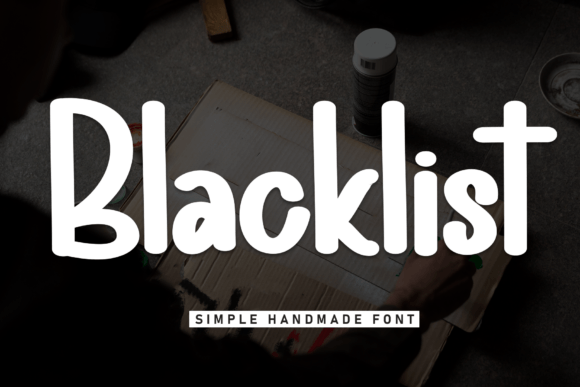
Discover the Delightful Blacklist Font: Adding a Touch of Whimsy to Your Designs
Have you ever been in the middle of a design project, and suddenly, you just can’t seem to find the right font? I recall a particularly frustrating moment when I was working on a wedding invitation project. My client wanted something that exuded warmth, friendliness, and a dash of playfulness. That’s when I stumbled upon the Blacklist Font – a charming and delightful handwritten display typeface that instantly won my heart!
A Personal Review: What I Love About Blacklist Font
Here’s what makes Blacklist Font an excellent addition to your font library:
- ✨ Adorable and quirky design: This font is perfect for adding a personal touch to your designs, making them stand out with its unique charm.
- ✅ Friendliness and fun: The Blacklist Font exudes a sense of approachability and playfulness, making it ideal for projects that require a lighthearted tone.
- 💕 Perfect for personal projects: Whether you’re designing wedding invitations, greeting cards, or any other personal project, this font will add an endearing, whimsical touch.
While I absolutely adore the Blacklist Font, there are a few minor quirks to be aware of:
- 🤔 Limited use in formal contexts: Due to its playful nature, this font might not be the best fit for formal or professional projects that require a more serious tone.
- ⚠️ Legibility at small sizes: As with many script fonts, the Blacklist Font may lose legibility when used at very small sizes. It’s best used at larger sizes to showcase its unique charm.
The Story Behind Blacklist Font
The Blacklist Font was designed with the intention of creating a unique, handwritten display typeface that captures the essence of friendliness and fun. Inspired by the imperfections and quirks of handwritten text, this font is perfect for designers looking to add a personal touch to their projects.
| What makes Blacklist Font unique? | The Blacklist Font’s unique blend of friendliness, fun, and playfulness makes it an excellent choice for designers looking to add a personal touch to their projects. |
| Is Blacklist Font suitable for body text? | While the Blacklist Font is primarily designed for display purposes, it can be used for short paragraphs of body text. However, for longer texts, a more legible font might be more suitable. |